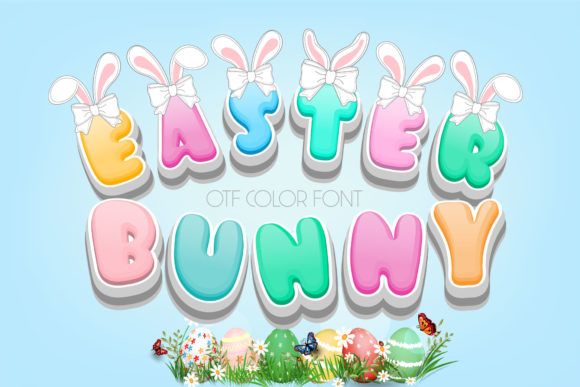
Are you ready to hop into the Easter spirit? Introducing Easter Bunny Font, the perfect addition to your holiday creations. Created by the talented designers at Nobu Collections, this colorful font is sure to make your projects pop.
With its sweet and bubbly design, Easter Bunny Font is the ideal choice for any Easter-themed project. From greeting cards to social media posts, this font will bring your creations to life. Its unique Opentype-SVG color font format makes it compatible with popular design software like Photoshop, Illustrator, Silhouette, and Inkscape.
So why should you choose Easter Bunny Font? Not only is it visually stunning, but it also evokes a sense of joy and excitement that's perfect for the holiday season. Whether you're a professional designer or just starting out, this font is sure to elevate your Easter creations to new heights.